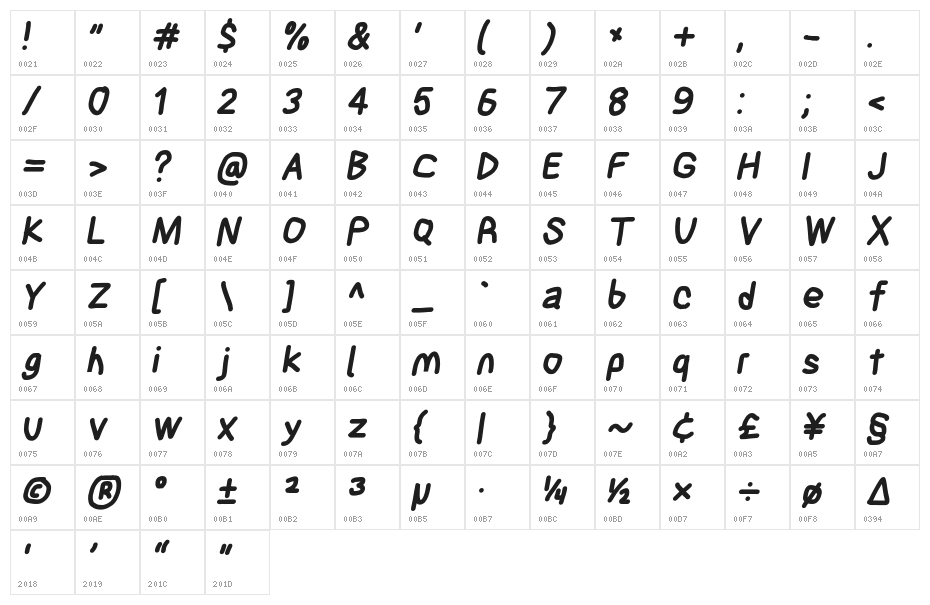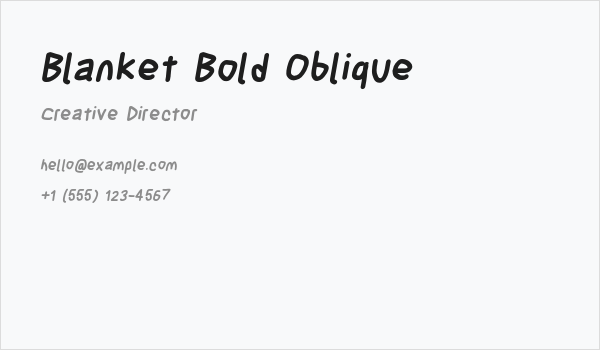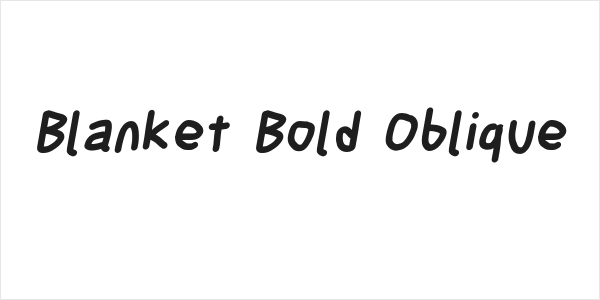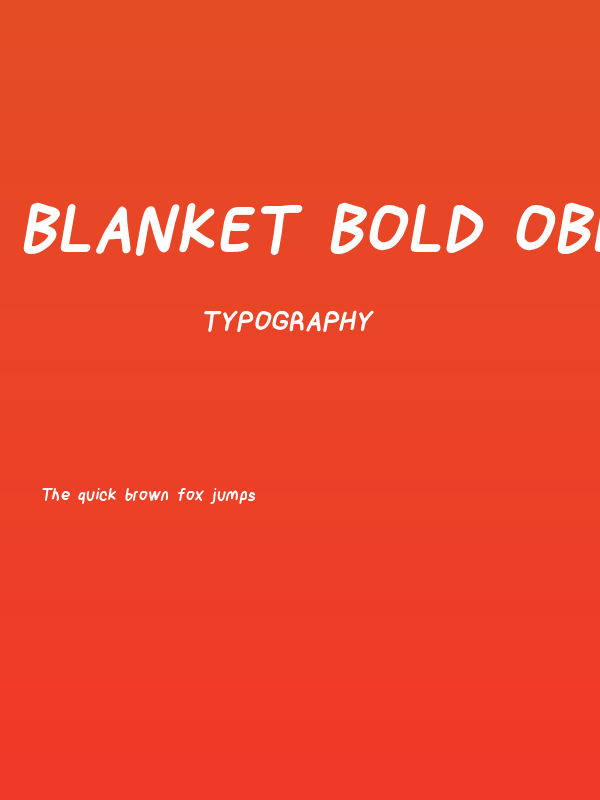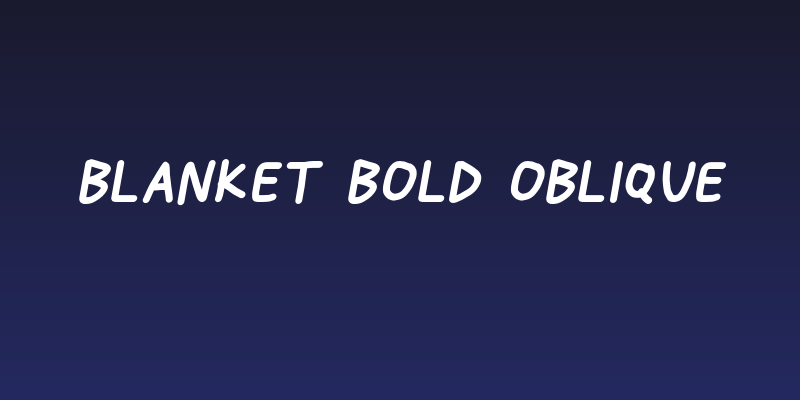
Blanket Bold Oblique Font
Blanket Bold Oblique Description
This font features a bold and playful style with a slight oblique slant, giving it a dynamic and energetic appearance. The characters are rounded and smooth, providing a friendly and approachable feel. The uppercase and lowercase letters maintain a consistent weight, ensuring readability while adding a touch of whimsy. The numerals and special characters follow the same design principles, making them cohesive with the alphabet. This font's boldness and slant make it stand out, suitable for projects that require a lively and informal touch.
| Overall Style | Playful, Energetic |
| Proposed Projects | Ideal for children's books, playful branding, casual invitations, and creative posters. |